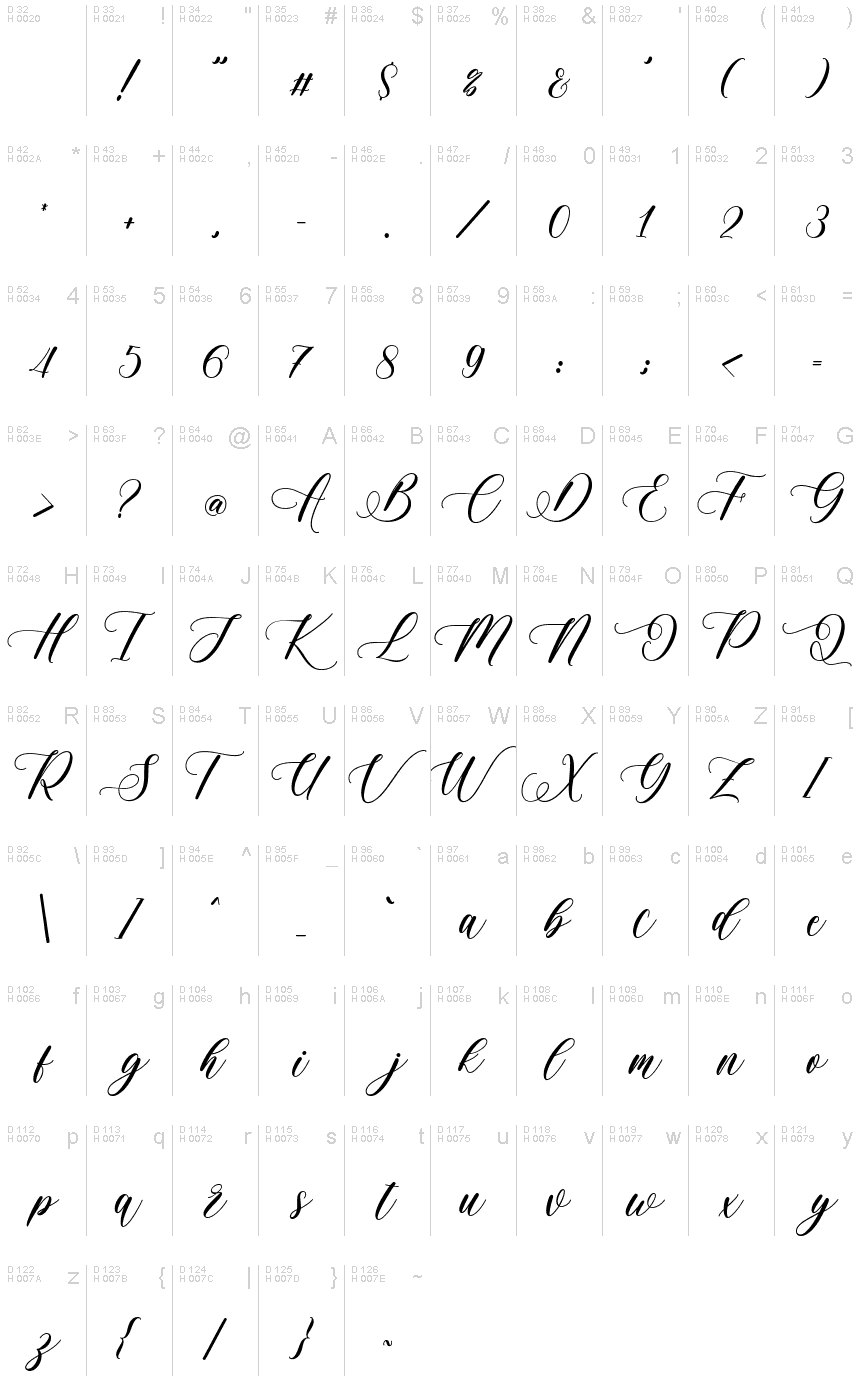
Anabeilla, the semi-light modern calligraphy font designed by Makashi, is the perfect fit for your creative projects. Its elegant and fluid strokes make it suitable for a variety of applications like wedding invitations, branding, social media graphics or even tattoos. The font's versatile style can add a touch of sophistication to minimalistic designs or bring an element of playfulness to bold ones. Anabeilla's unique lettering will give your projects that extra edge while conveying a sense of refinement and grace. With its design, Anabeilla is sure to make your content stand out in search results.